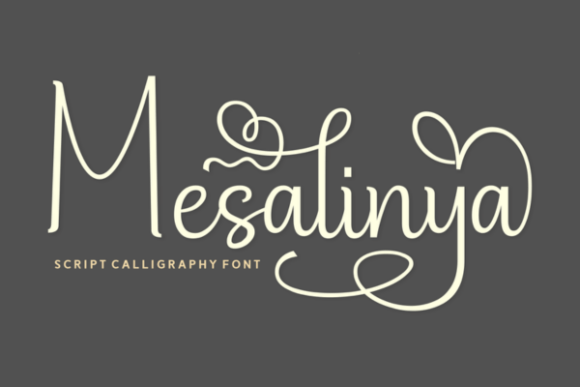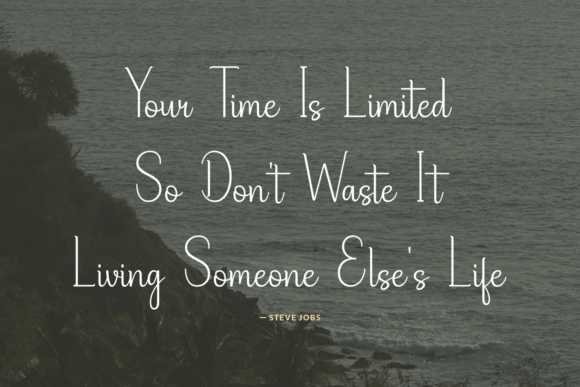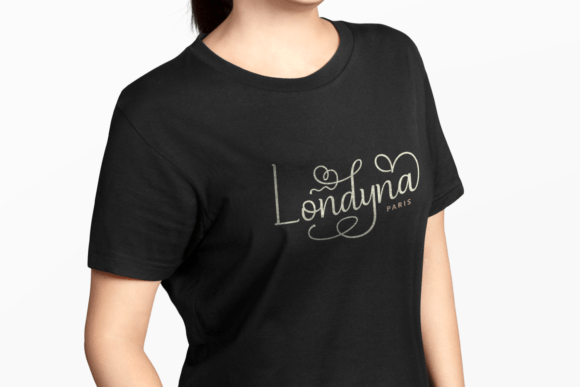
Mesalinya Font: Elegant Script Calligraphy for Wedding & Luxury Branding
About the Mesalinya Font
From logos to headlines, the Mesalinya Font is the perfect choice for making a lasting impression. Mesalinya is an exquisite script calligraphy font that blends delicate elegance with decorative flair. With its refined curves, graceful loops, and beautifully integrated swashes, this font is ideal for wedding materials, luxury branding, personal signatures, and romantic designs. Mesalinya brings a timeless sophistication to your creative toolkit—perfect for when you want your text to truly enchant.
Mesalinya’s elegant, yet slightly whimsical personality makes it a superb choice for projects requiring a touch of refined playfulness. It excels in headlines, short text blocks on invitations or packaging, and as an accent font in logos or branding for businesses focused on beauty, fashion, or the arts. Avoid using Mesalinya for large blocks of body text or UI elements; its decorative nature can hinder readability.
Pairing Mesalinya effectively requires considering its delicate curves. A clean sans-serif like Lato or a geometric sans-serif like Futura would provide a strong, modern contrast. For a warmer feel, a classic serif such as Garamond or a more contemporary serif like Playfair Display could complement its script qualities.
The font’s overall mood is sophisticated yet approachable, lending itself to brands that value both luxury and a friendly, personal touch. Avoid pairing it with overly bold or aggressive fonts, as this might overshadow its inherent grace and charm.
Mesalinya Font Usage Examples
Mesalinya Font Example